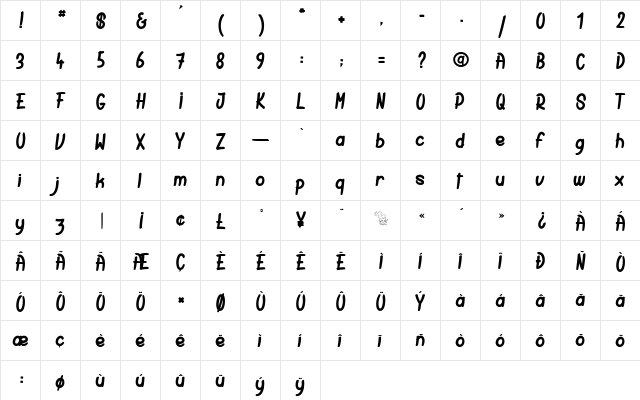
Rabbit Hole Regular
| Foundry | dcoxy Medina Gregory |
| Designer | dcoxy Medina Gregory |
Design Context for Rabbit Hole Typeface
Rabbit Hole is a composed and adaptable typeface that performs quietly and consistently across a wide range of design contexts.